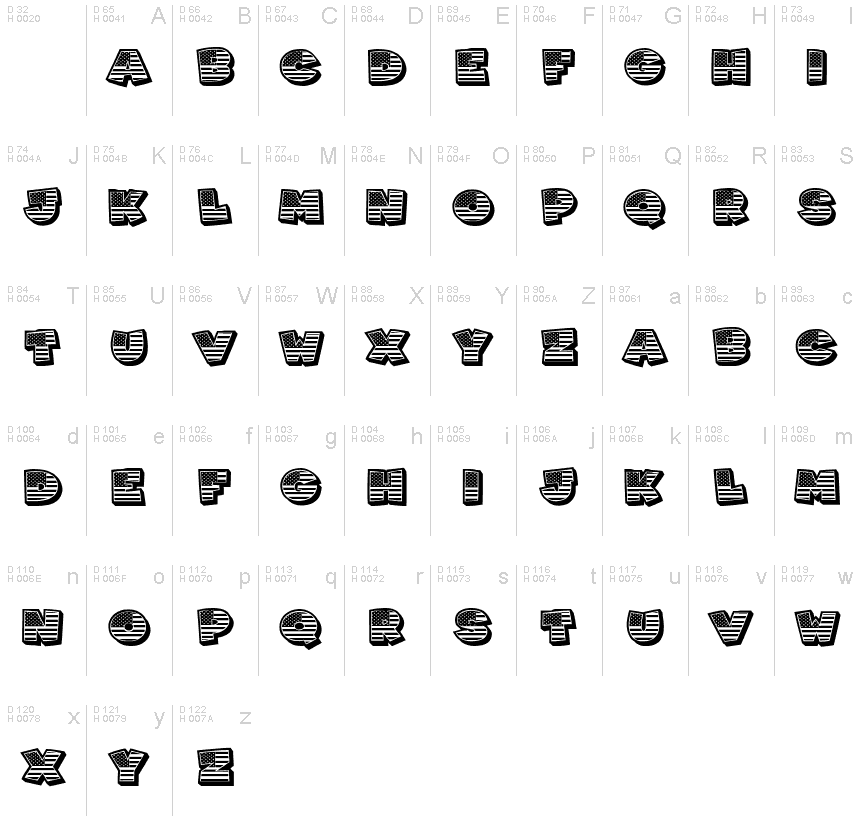
Americans Regular
Americans, an extraordinary display font created by renowned designer Vladimir Nikolic. With its decorative style and extra-bold weight, Americans stands out in any design project. Its semi-expanded width adds a touch of uniqueness and versatility, making it suitable for a wide range of creative endeavors. Perfect for eye-catching headlines, striking logos, impactful posters, and captivating product packaging designs. Let your imagination run wild with Americans – the font that effortlessly captures attention and leaves a lasting impression.